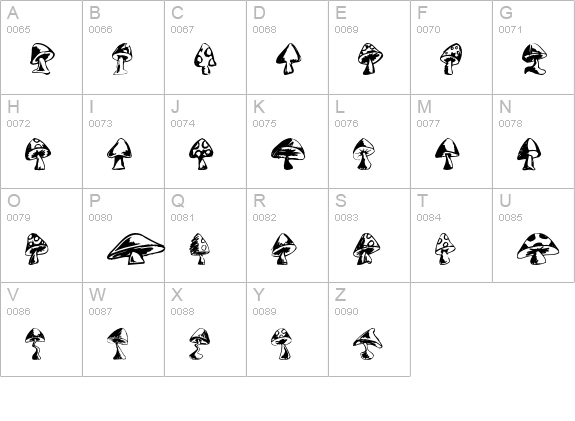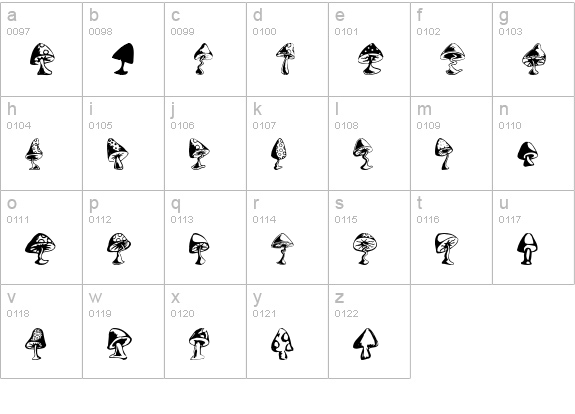
Shrooms Font Details
Introducing Shrooms, a captivating font that effortlessly combines whimsy with sophistication. Designed for those who dare to be different, Shrooms adds a touch of magic to any project, making it perfect for imaginative branding, eye-catching advertisements, and captivating headlines. This one-of-a-kind font features a unique blend of playful curves and elegant lines, creating a harmonious balance that is both visually striking and easy on the eyes. Its carefully crafted letterforms exude a sense of enchantment, allowing your words to come to life with a touch of mystique. But what truly sets Shrooms apart is its versatility. Whether you're working on a children's book, a fantasy-themed website, or a psychedelic event poster, this font effortlessly adapts to any design concept, infusing it with its own brand of charm and character. And the best part? Shrooms is absolutely free to download at FontsMarket.com. We believe that creativity should never be limited, so we've made it our mission to bring you high-quality fonts that are accessible to all. With Shrooms, you can unleash your imagination without any cost, and watch as your designs flourish with its whimsical allure. So why wait? Dive into the world of Shrooms, and let your creativity run wild. Download this captivating font today, and unlock a world of design possibilities. Remember, it's freely available to download at FontsMarket.com, so don't miss out on this magical opportunity to transform your projects into works of art.